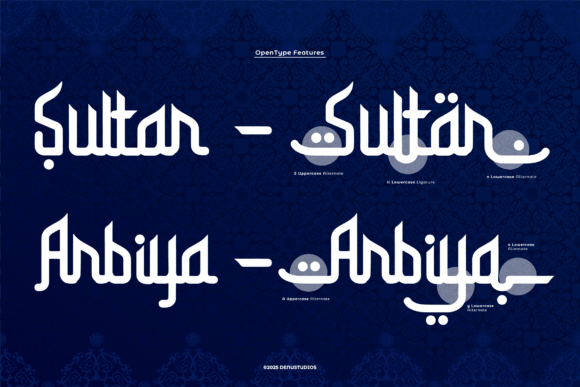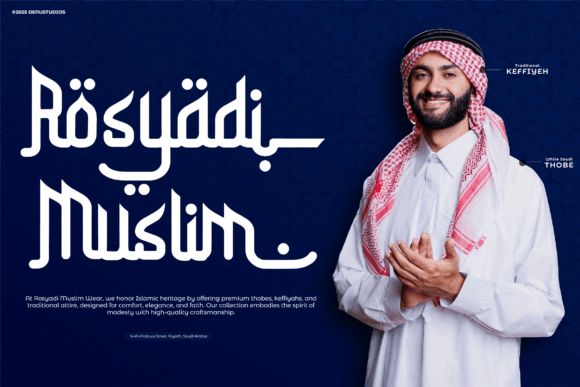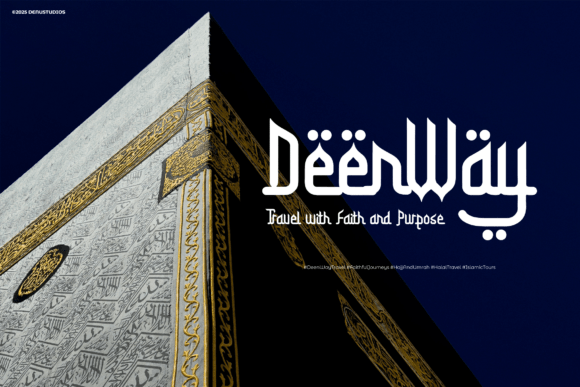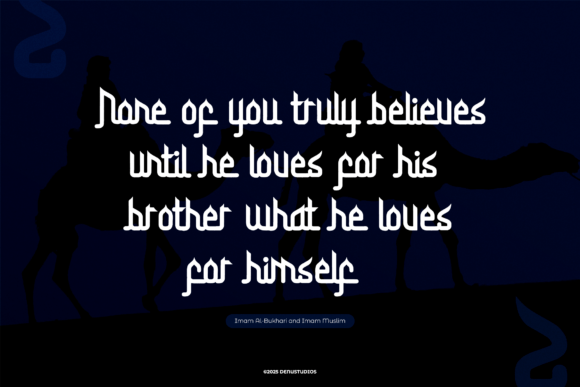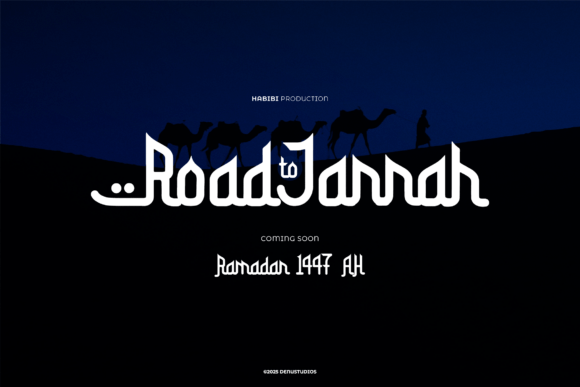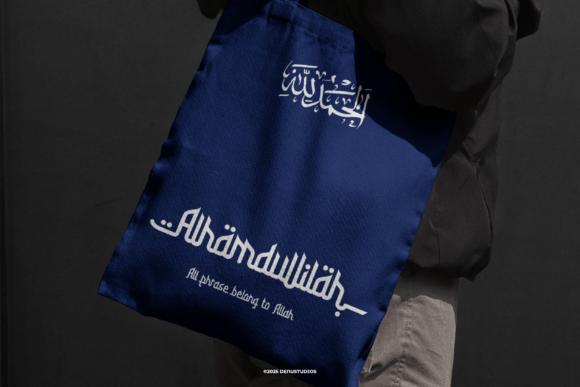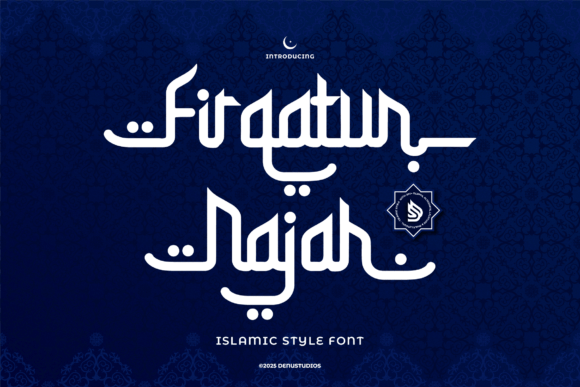
Discover the Elegance of Firqatun Najah Font: Where Modernity Meets Tradition
In the realm of typography, few fonts manage to strike a balance between modern aesthetics and traditional roots as elegantly as Firqatun Najah. This structured and contemporary Islamic-style font is an exemplary fusion of modern design principles with the timeless beauty of Kufic and Arabic calligraphy. Whether you’re a designer looking for a unique touch for your branding, a craftsperson seeking the perfect style for religious posters, book covers, or event invitations, Firqatun Najah emerges as a compelling choice.
The Inspiration Behind Firqatun Najah
Firqatun Najah draws its inspiration from the rich heritage of Arabic calligraphy, particularly the Kufic script, which is renowned for its geometric flow and intricate beauty. This script, one of the oldest and most revered forms of Arabic calligraphy, is characterized by its square or rectangular shapes, making it a visually striking form of art. The creators of Firqatun Najah sought to capture the essence of this traditional script and infuse it with a modern twist, making it suitable for a wide array of applications without losing its cultural and artistic significance.
Key Features of Firqatun Najah Font
- Structured and Contemporary Design: Firqatun Najah boasts a sleek and structured design that aligns with modern typography trends while maintaining a deep connection to traditional Islamic art.
- Geometric Flow: The font inherits the geometric flow characteristic of Kufic calligraphy, offering a unique and captivating visual experience.
- Versatility: Its clean lines and contemporary look make Firqatun Najah incredibly versatile, suitable for use in branding, posters, book covers, event invitations, and a myriad of other projects.
- Cultural Significance: For projects that aim to celebrate or represent Islamic culture and art, Firqatun Najah provides an authentic and respectful aesthetic.
Applications of Firqatun Najah
The potential applications of Firqatun Najah are vast and varied. Designers and crafters can utilize this font in numerous creative and professional projects:
- Branding: Elevate your brand with a distinctive and memorable typography that sets you apart.
- Religious Posters and Banners: Convey messages of peace, spirituality, and community with a font that resonates with the cultural and religious significance of your content.
- Book Covers: Especially for literature that explores themes of spirituality, history, culture, and art, Firqatun Najah can add a layer of authenticity and allure.
- Event Invitations: For cultural, religious, or artistic events, this font can set the tone, promising an enriching experience for attendees.
Why Choose Firqatun Najah?
In a world where design trends are constantly evolving, Firqatun Najah offers a refreshing blend of the traditional and the contemporary. Its unique geometric style, inspired by the ancient art of Arabic calligraphy, provides not only aesthetic appeal but also a narrative depth. Choosing Firqatun Najah for your projects means embracing a piece of cultural heritage while ensuring your work stands out with a modern edge.
Firqatun Najah is more than just a font; it’s a bridge between past and present, tradition and innovation. Its creation speaks to the evolving nature of design and the enduring beauty of Arabic calligraphy. For designers and crafters looking to imbue their work with a sense of history, cultural depth, and modern sophistication, Firqatun Najah is an unparalleled choice. As we continue to navigate the diverse and vibrant landscape of typography, fonts like Firqatun Najah remind us of the power of design to connect, inspire, and elevate.